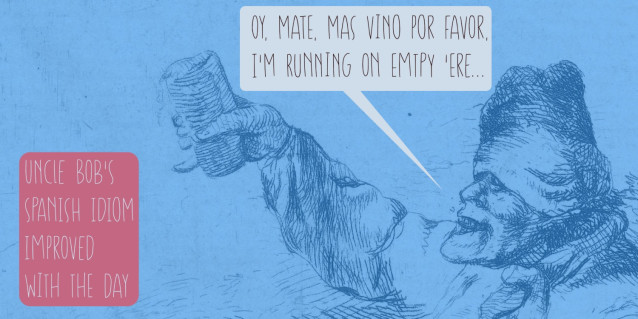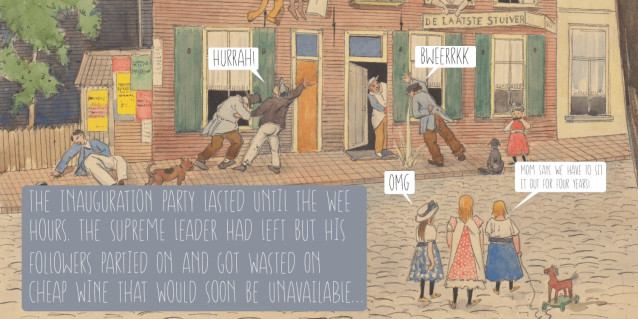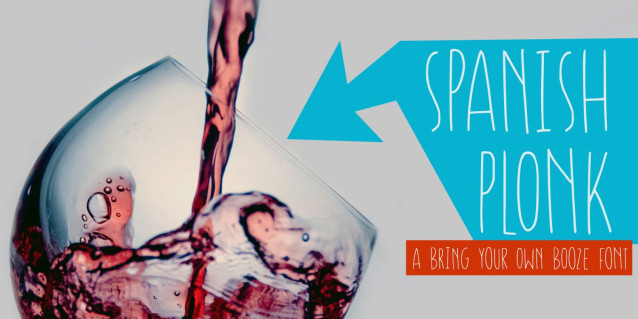
Spanish Plonk Font
Spanish Plonk Font is a handmade, all caps, Tall & Thin font. It comes with extensive language support and a lovely set of alternates for the lower case glyphs.